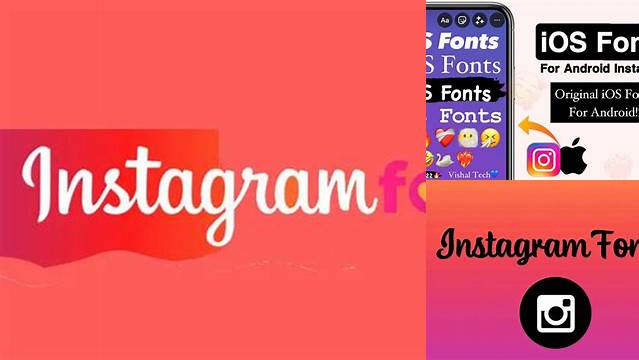
Instagram IOS Bold Font Download Free: Ultimate Guide
Hey guys, if you're anything like me, you're always looking for ways to spice up your Instagram game. One of the coolest ways to do that is by using bold fonts in your captions, stories, and bios. But, did you know that Instagram doesn't natively offer a bold font option? Fear not, because I'm here to break down how you can download and use Instagram iOS bold fonts for free and take your profile to the next level. We'll dive into the why's, the how's, and some awesome tips to get your posts noticed.
Why Use Bold Fonts on Instagram?
Okay, so you might be wondering, why even bother with bold fonts? Well, the answer is simple: They grab attention! In a world where users are constantly scrolling, using a bold font is like putting up a neon sign that says, "Hey, look at me!" It's all about standing out from the crowd, and trust me, it works. Bold fonts make your text more readable, especially in a feed cluttered with images and videos. They help to emphasize key points, making your captions and stories more engaging. They can also help establish your brand's unique personality and voice, giving your profile a more polished and professional look. When you use bold fonts effectively, you can significantly increase your content's visibility and engagement rates, drawing in more followers and turning casual viewers into dedicated fans. It's a simple trick that can have a huge impact on your overall Instagram strategy.
Think about it: when you see something bold, your eyes are naturally drawn to it. It's the same principle that makes headlines in newspapers and magazines so effective. You can use bold fonts to highlight important information, such as calls to action, special offers, or key details about your brand. By using bold fonts strategically, you can guide your audience's attention to the most important parts of your message, increasing the chances that they'll read your entire caption or watch your entire story. This also helps create a more organized and visually appealing profile, making it easier for people to find the information they're looking for. Plus, a well-designed profile that makes use of bold fonts can make your brand appear more trustworthy and professional, encouraging people to follow you and learn more about what you have to offer. It's all about creating a captivating experience that keeps your audience hooked and eager to see what you'll post next.
For example, imagine you're promoting a sale. Instead of a regular text caption, you could write something like "SALE! 50% off all items this weekend!" The bold font instantly draws attention to the sale, making it more likely that people will notice and take action. Or, if you're sharing a quote, you could use a bold font to make it stand out from the rest of your caption. This way, the quote becomes the focal point, making it more memorable and impactful. Essentially, bold fonts are a secret weapon for creating more engaging and effective Instagram content. They help you to stand out, emphasize important information, and make your profile more visually appealing. So, are you ready to take your Instagram game to the next level? Let's get started!
Free Ways to Generate Bold Fonts for Instagram iOS
Alright, so here's the deal. Instagram doesn't give you a built-in bold font option. No worries though, because we can still get it done with some cool tools. You have a few options, and the best part is, they're all free. Let's explore a couple of super easy ways to get those bold fonts working for you on your iPhone.
Using Online Font Generators
Online font generators are your best friend when it comes to creating those eye-catching fonts. There are tons of websites out there that let you type in your text and convert it into different font styles, including bold, italic, and even some super fancy ones. The process is super simple. First, you find a font generator site (a quick search on Google or your favorite search engine will do the trick). Then, you type in the text you want to use. The generator will instantly display your text in various font styles. You then choose the bold font option, copy it, and paste it into your Instagram bio, caption, or story. Boom! Instant bold font magic.
Most of these websites are totally free to use. Just make sure the site is secure and doesn't ask for any personal information. Also, keep in mind that the fonts generated aren't technically 'fonts' in the traditional sense. They're usually a combination of Unicode symbols designed to look like different fonts. This means they won't work everywhere (like in your phone's text messages), but they work perfectly on Instagram. These tools make it easy to experiment with different styles and see what works best for your brand and message. Plus, it is a quick process to change the font when needed.
Some popular font generator websites include LingoJam, Cool Fonts, and Instagram Fonts. These sites are known for their user-friendly interfaces and wide selection of font styles. These platforms offer different types of customization, so play around with the options and see which generator is the best fit. You can even mix and match fonts and symbols to create unique text for your profile. Just remember to always double-check the generated text before posting to make sure it looks the way you want it to. Online font generators are a fantastic way to quickly add some style to your Instagram content. They are fast, easy, and perfect for someone just getting started. Go find a font generator and get creative with the bold text!
Keyboard Apps for Custom Fonts
Another cool option is to use a keyboard app that supports custom fonts. These apps replace your phone's standard keyboard and provide a variety of fonts and text styles directly within Instagram. This can be a more convenient option, as you don't have to switch between apps to generate the fonts. The best keyboard apps are usually available in the App Store, and many of them are free (with optional in-app purchases for more fonts).
To use a keyboard app, you'll need to download and install it from the App Store. Then, you'll have to enable it in your iPhone's settings. Once enabled, you can switch to the custom keyboard within Instagram and start typing in bold fonts. Keyboard apps not only offer bold fonts but also a range of other styles, such as italics, cursive, and even emojis. It is an easy way to experiment with different styles and find the perfect font for your brand's look.
Some popular keyboard apps include Fonts Keyboard, Font Style Keyboard, and Stylish Text. Be sure to check the app's reviews and permissions before installing it. Some apps may require access to your contacts or other personal information, so it's essential to ensure they are trustworthy before using them. Keyboard apps are a great way to add more character and creativity to your posts. They are easy to access and often contain other features that can save you time. Plus, they provide a more integrated solution for generating custom fonts on your Instagram. Download a few options and test them out to find the one that best suits your needs. Get ready to transform your content with some awesome custom fonts!
So, there you have it! Adding bold fonts to your Instagram content is a great way to enhance your profile. It's free, easy, and a fantastic way to draw attention to your posts. By using online generators or keyboard apps, you can easily add bold fonts to your bio, captions, and stories. Remember to use these tools strategically, focus on readability, and keep your branding consistent. Don't be afraid to experiment with different styles and find what works best for your brand. Now go ahead and start creating some eye-catching content! Enjoy creating your beautiful posts on Instagram. Happy posting, guys!